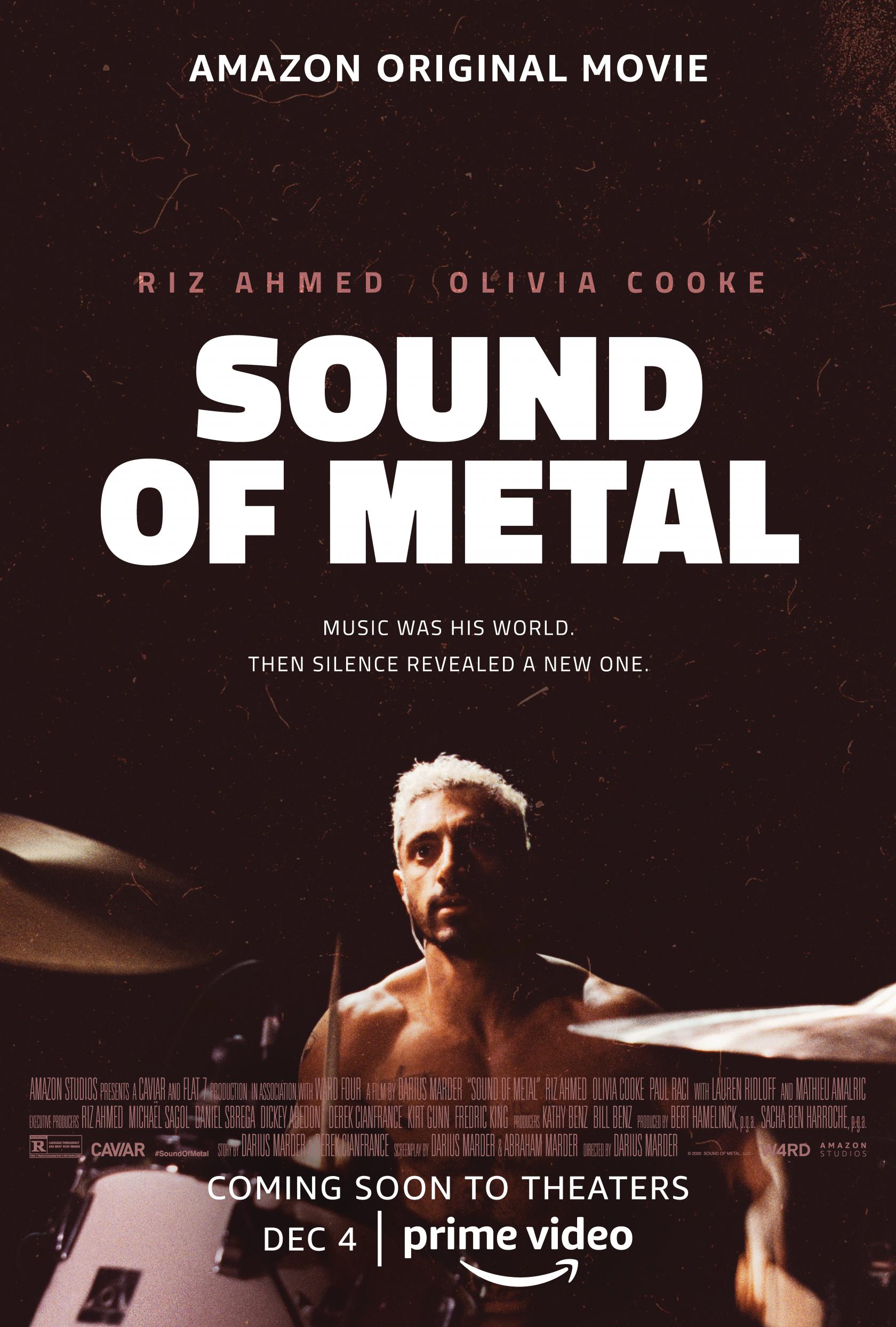
Sound of Metal Font
DramaSound of Metal is a 2019 American drama film about a drummer who loses his hearing and struggles to adapt to a new way of life.